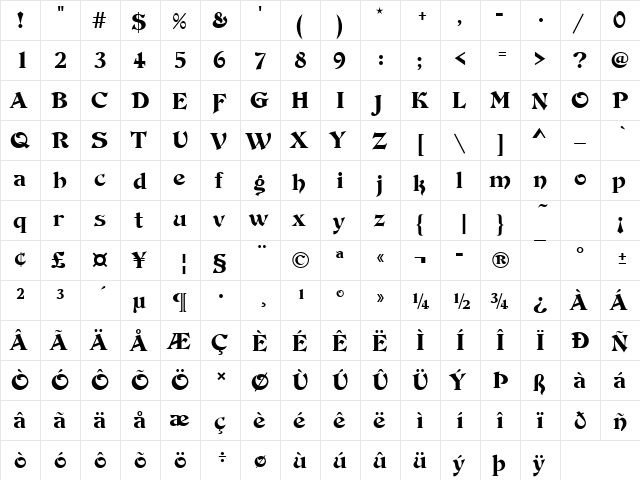
DerschawinD Regular
Design Context for DerschawinD Typeface
DerschawinD is a composed and adaptable typeface that performs quietly and consistently across a wide range of design contexts.